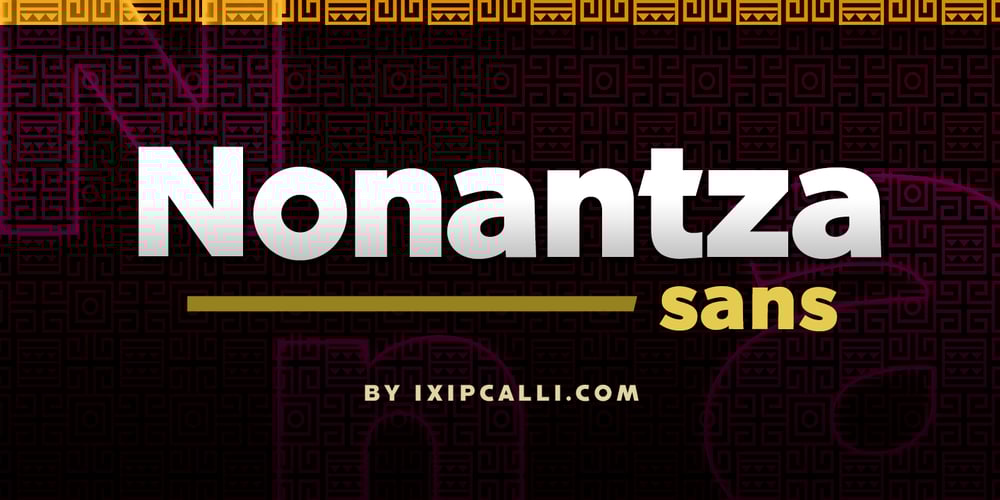
Nonantza Sans Font Family was designed by Francisco Arellano and published by Ixipcalli. Nonantza Sans contains 4 styles and family package options. Nonantza Sans is a sans serif style. It comes in four weights and features an extended character set with open type support for European languages.Use Nonantza Sans for your graphic design projects, advertising, banners and signs.